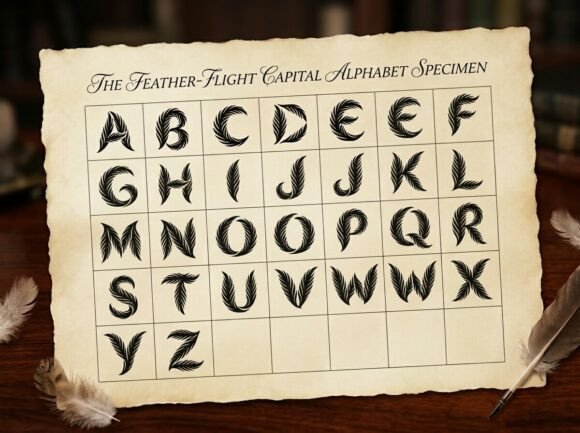
Introducing Burns Font: Elevate Your Brand with Organic Elegance
Soar into a world of organic beauty with Burns, a breathtaking display typeface that captures a “feathered-and-fluid” soul. This stunning font features elegant letterforms uniquely characterized by rhythmic, hand-illustrated feather textures that form the spine of every character, bridging the gap between natural avian aesthetics and modern luxury branding.
The Inspiration Behind Burns Font
Burns Font is the perfect blend of nature and sophistication. The font’s design is inspired by the fluid, organic shapes of feathers, which are meticulously illustrated to create a truly unique and eye-catching effect. The result is a medium structural weight with an ornamental personality that exudes elegance and refinement.
Perfect for Luxury Branding and Design
With its distinctive feather textures and classic letterforms, Burns Font is the premier choice for designers and crafters looking to create high-end branding and design elements. This font is particularly suited for:
- Independent wellness boutique identities
- Boutique organic skincare logos
- Premium stationery designs
- High-impact “natural-and-noble” social media headers
Key Features of Burns Font
So, what makes Burns Font so special? Here are some of its key features:
- Unique Feather Textures: Each character features hand-illustrated feather textures that add an organic, natural touch to your designs.
- Elegant Letterforms: Burns Font boasts classic, elegant letterforms with a medium structural weight that exudes sophistication and refinement.
- Ornamental Personality: This font’s ornamental personality makes it perfect for luxury branding and design elements that require a touch of elegance.
- Versatility: Burns Font can be used for a wide range of design applications, from logos and stationery to social media headers and more.
Why Choose Burns Font?
In today’s competitive design landscape, it’s essential to stand out from the crowd. Burns Font offers a unique and distinctive style that will elevate your brand and designs to new heights. Here are just a few reasons why you should choose Burns Font:
- Make a Statement: With Burns Font, you can create stunning designs that make a lasting impression on your audience.
- Convey Luxury and Sophistication: This font’s elegant letterforms and ornamental personality convey a sense of luxury and sophistication that’s perfect for high-end branding.
Tips for Using Burns Font
To get the most out of Burns Font, here are some tips to keep in mind:
- Pair with Neutral Backgrounds: Burns Font looks stunning against neutral backgrounds, which allow its elegant letterforms and feather textures to take center stage.
- Use for Headings and Titles: Burns Font is perfect for headings and titles, where its unique feather textures and elegant letterforms can make a lasting impression.
In conclusion, Burns Font is a breathtaking display typeface that offers a unique blend of natural elegance and luxury sophistication. With its hand-illustrated feather textures, elegant letterforms, and ornamental personality, this font is perfect for designers and crafters looking to create high-end branding and design elements. Whether you’re working on a logo, stationery, or social media headers, Burns Font is the perfect choice for elevating your brand and designs to new heights.